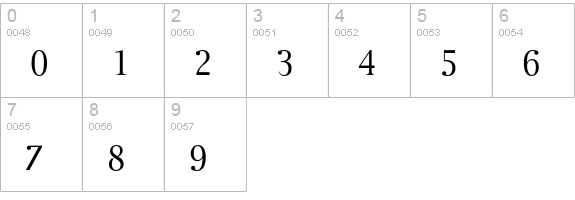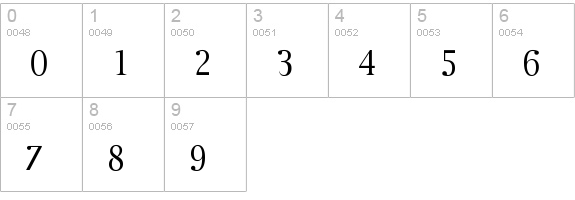
Cothral Font Details
Cothral font is a stunning display typeface that effortlessly blends elegance with modernity. Its clean lines and unique character shapes make it perfect for a wide range of design projects, from logos to posters to branding materials. The font's sleek and contemporary style adds a touch of sophistication to any design it is used in. Best of all, Cothral font is available for free download at FontsMarket.com. This means you can easily access and use this beautiful typeface in your projects without any cost. Whether you are a professional designer looking to enhance your creations or a hobbyist seeking a stylish font for personal projects, Cothral font is a fantastic choice that won't break the bank. Download it today and elevate your designs with this versatile and eye-catching typeface.